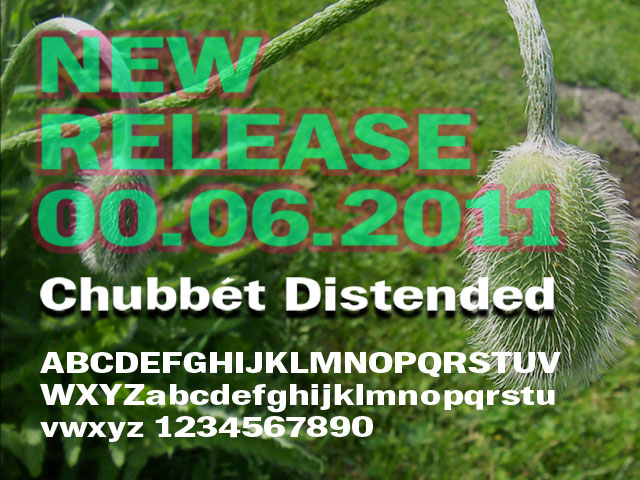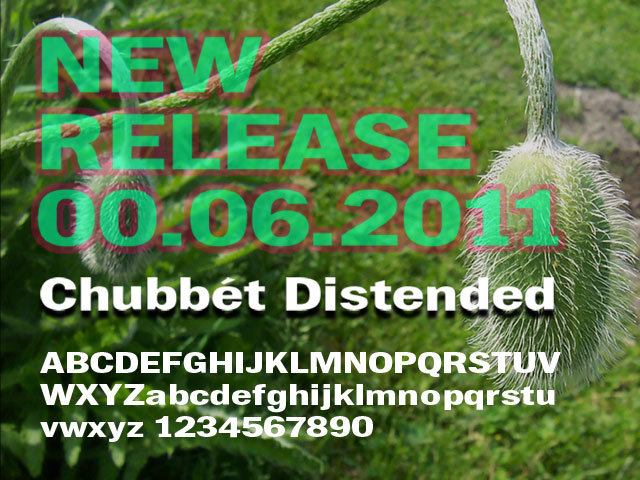
The Grotesque Typeface family Chubbét created by Stephen Boss in late 2011 has just widened to include Chubbét Distended in Regular, Regular Italic, Bold, Bold Italic, Black and Black Italic. Rather than creating an extended version of the designer decided to distend it, keeping with the name.
The family was inspired by Venus and various other sans typefaces, with the intention of headline applications and is now available at Fonts.com and itcfonts.com.